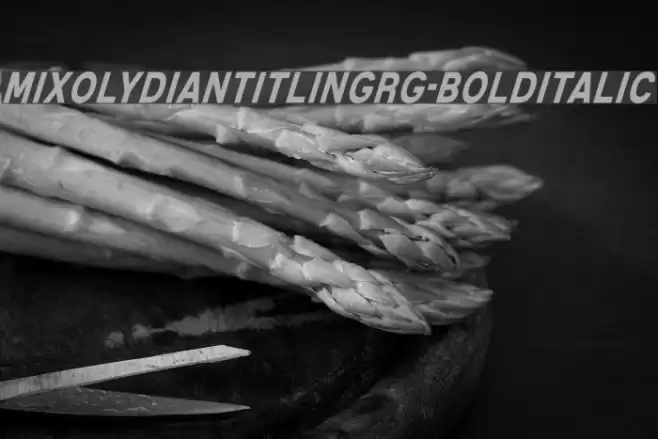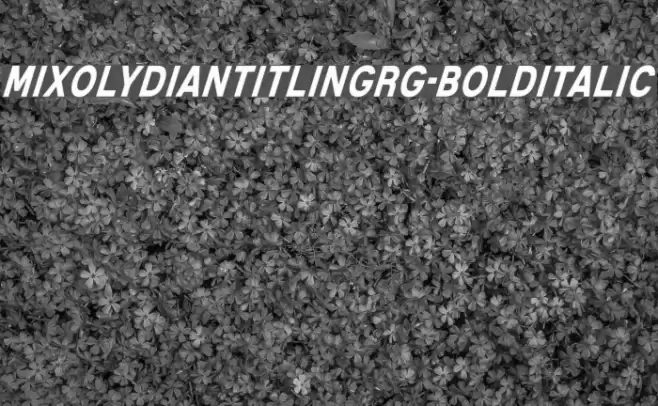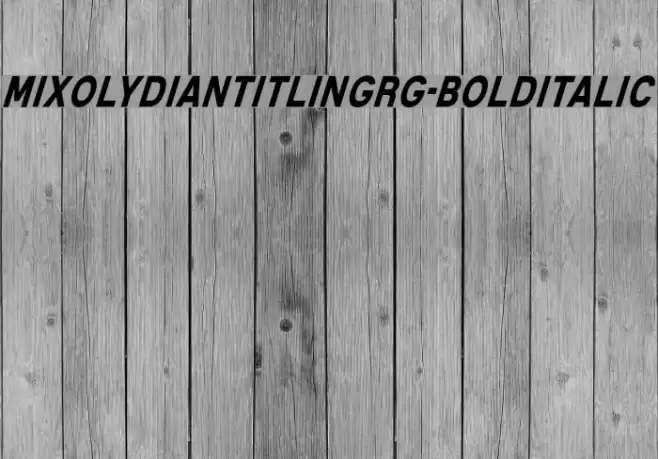
MixolydianTitlingRg-BoldItalic Font
MixolydianTitlingRg-BoldItalic Description
This font features a bold and italicized style, characterized by its strong, dynamic presence. The letters are slanted, giving a sense of motion and energy. The strokes are thick and consistent, providing a robust appearance. The uppercase and lowercase letters maintain a uniform width, ensuring readability and balance. The numerals are clear and bold, matching the overall style of the font. Special characters are included, each designed with the same bold and italicized characteristics, making them stand out effectively. This font is ideal for making a strong visual impact.
A bold, italicized font with strong, dynamic strokes from Uncategorized fonts.
- Proposed Projects: Ideal for headlines, posters, branding, and advertising where a bold statement is needed.